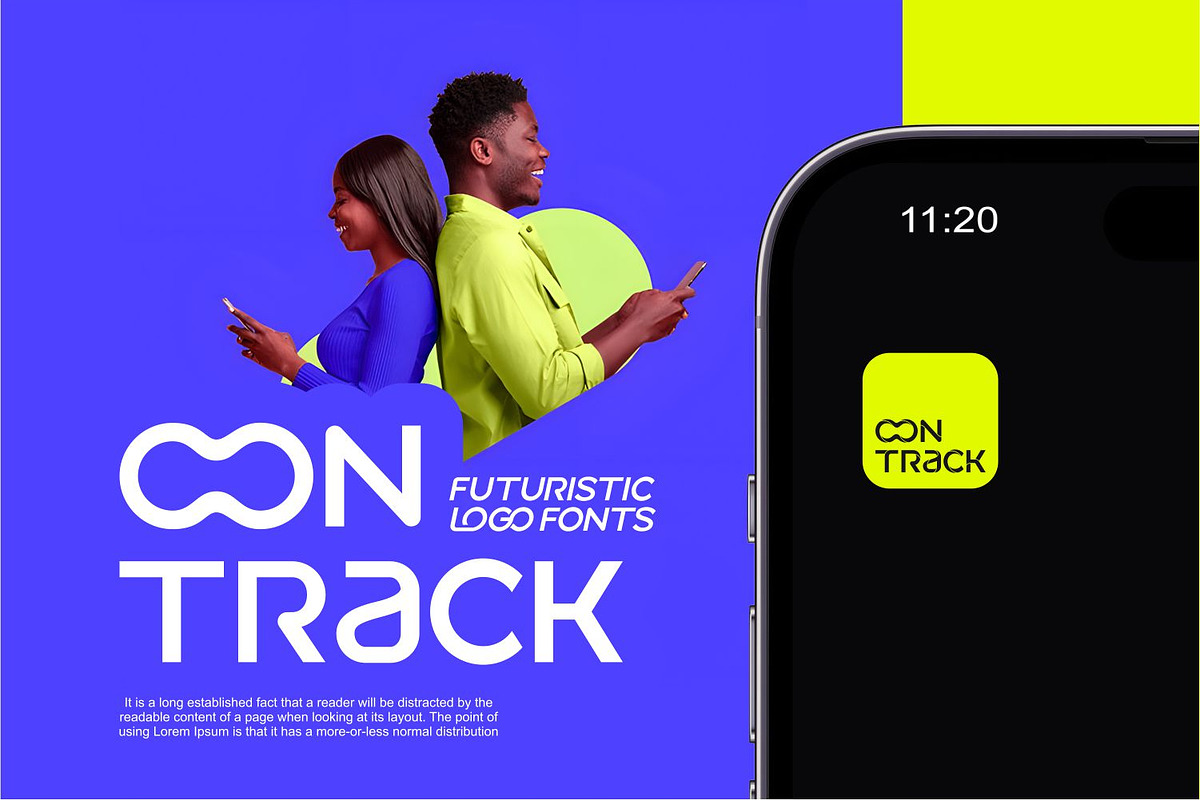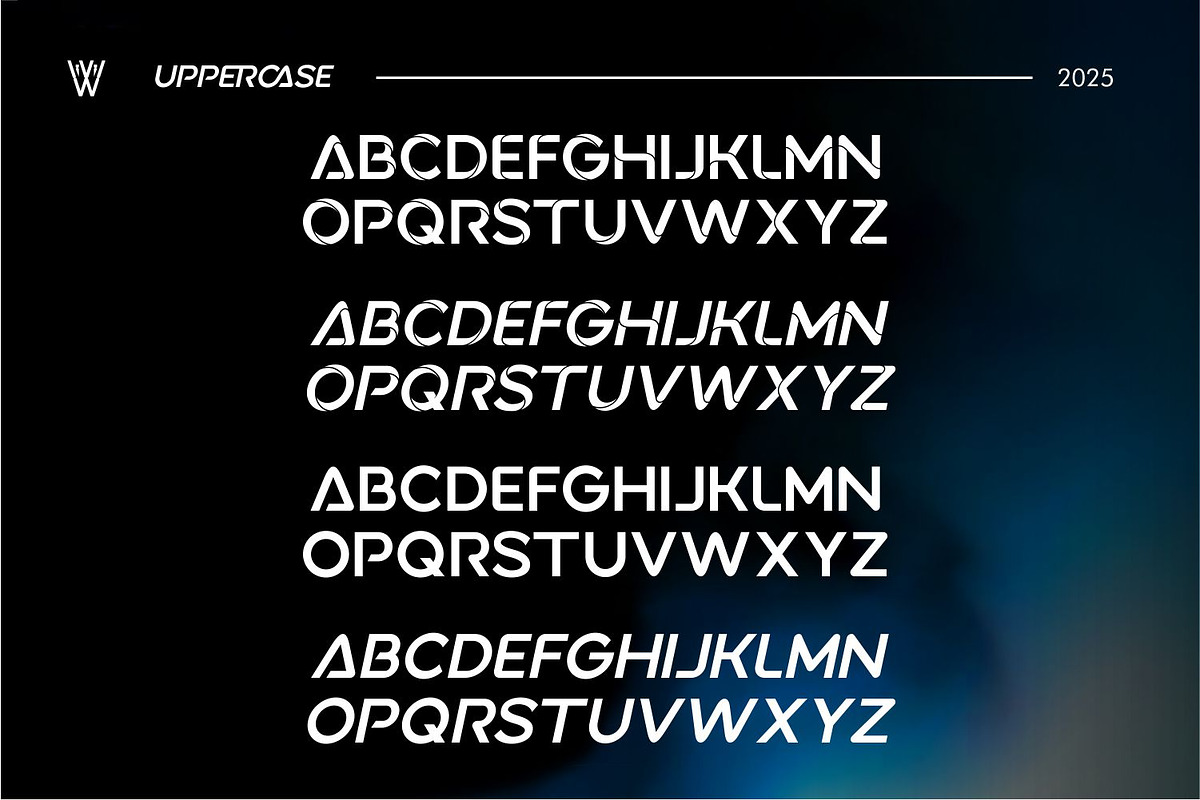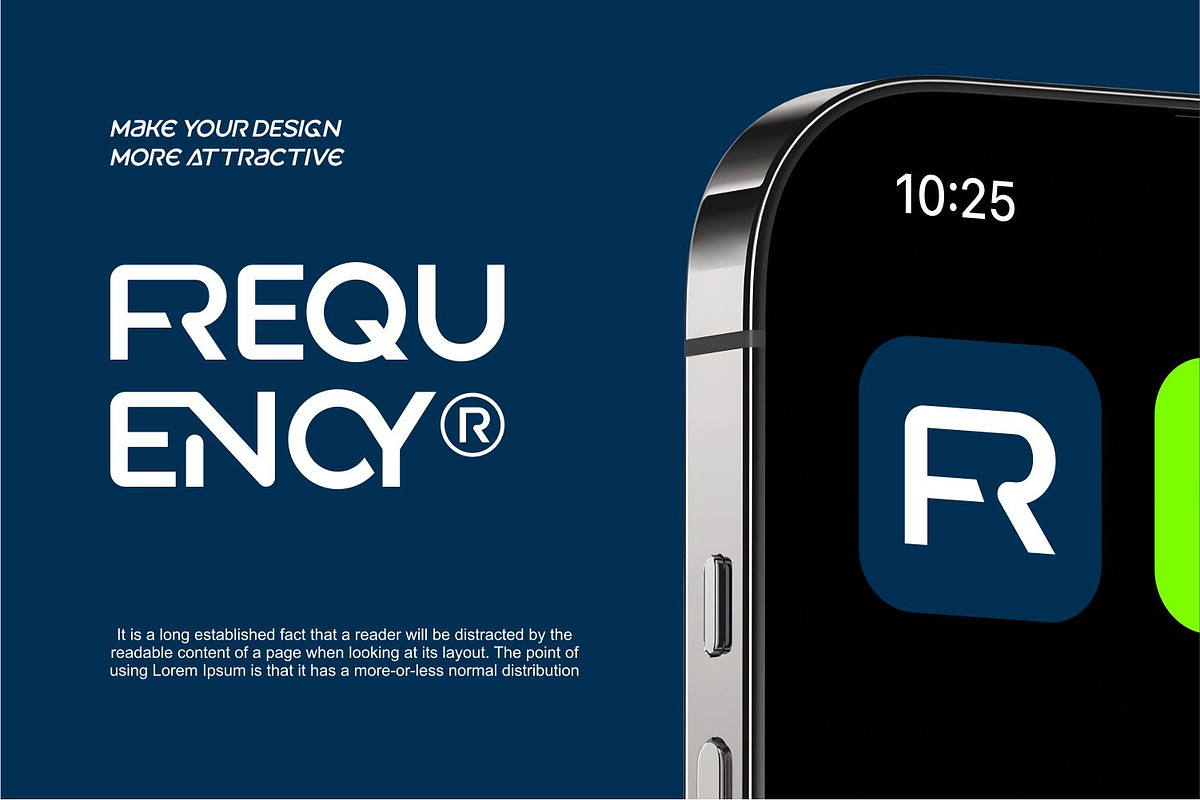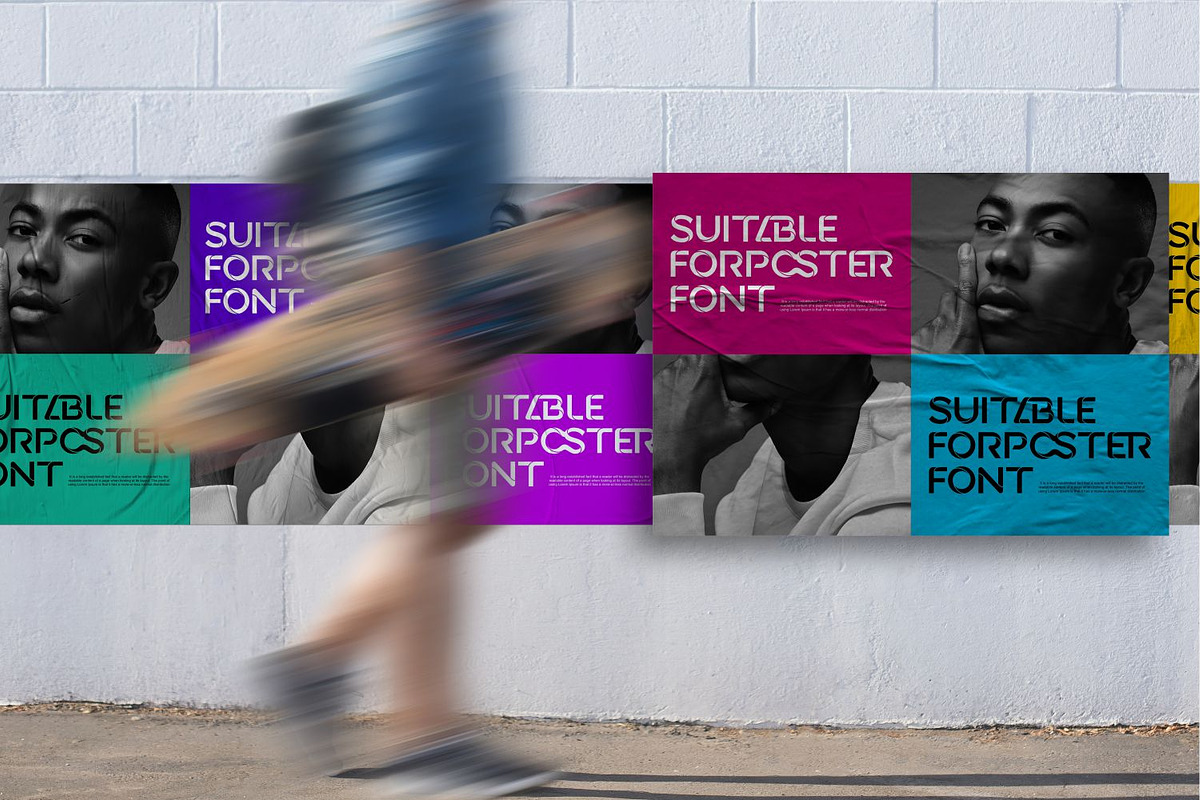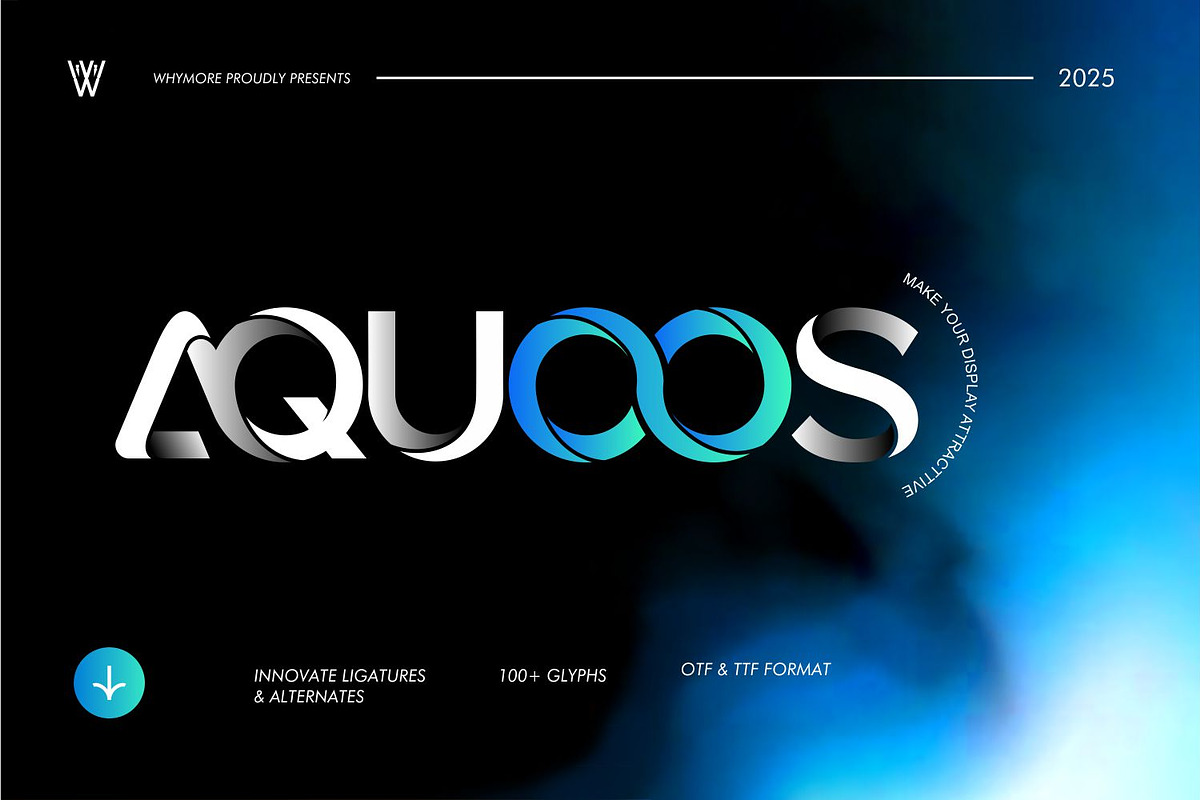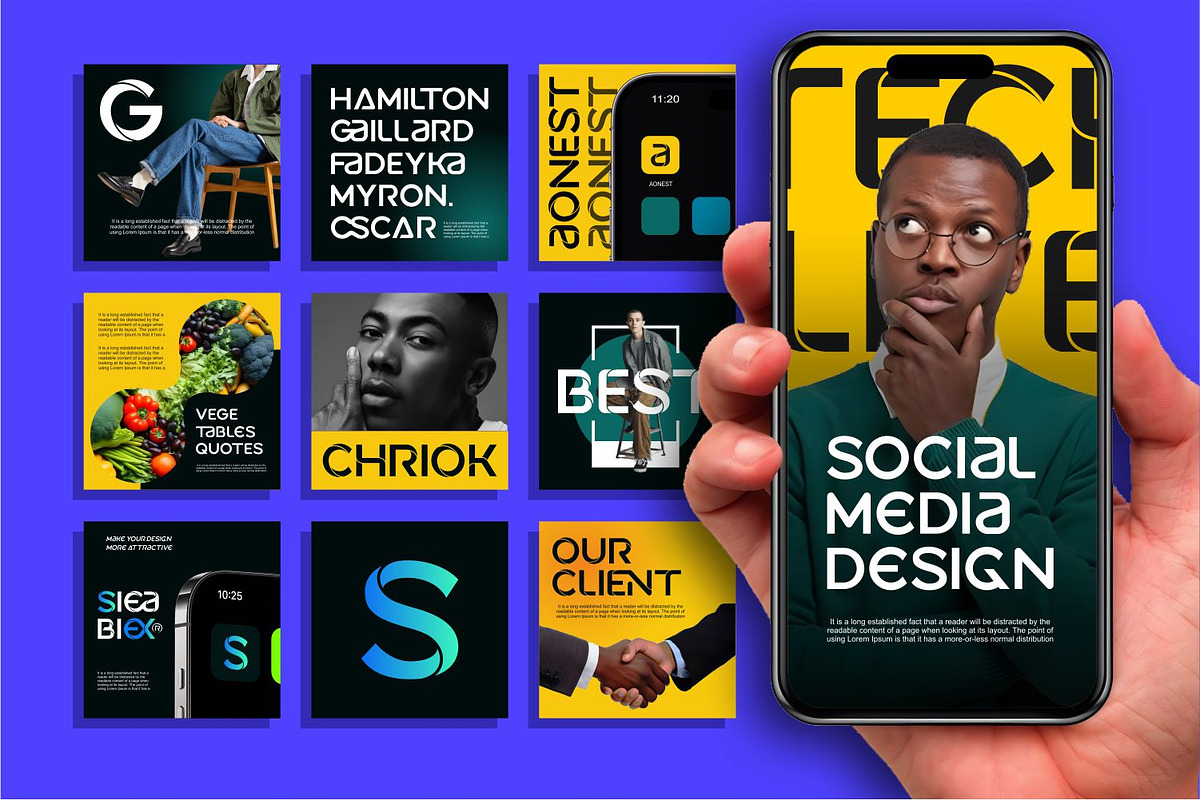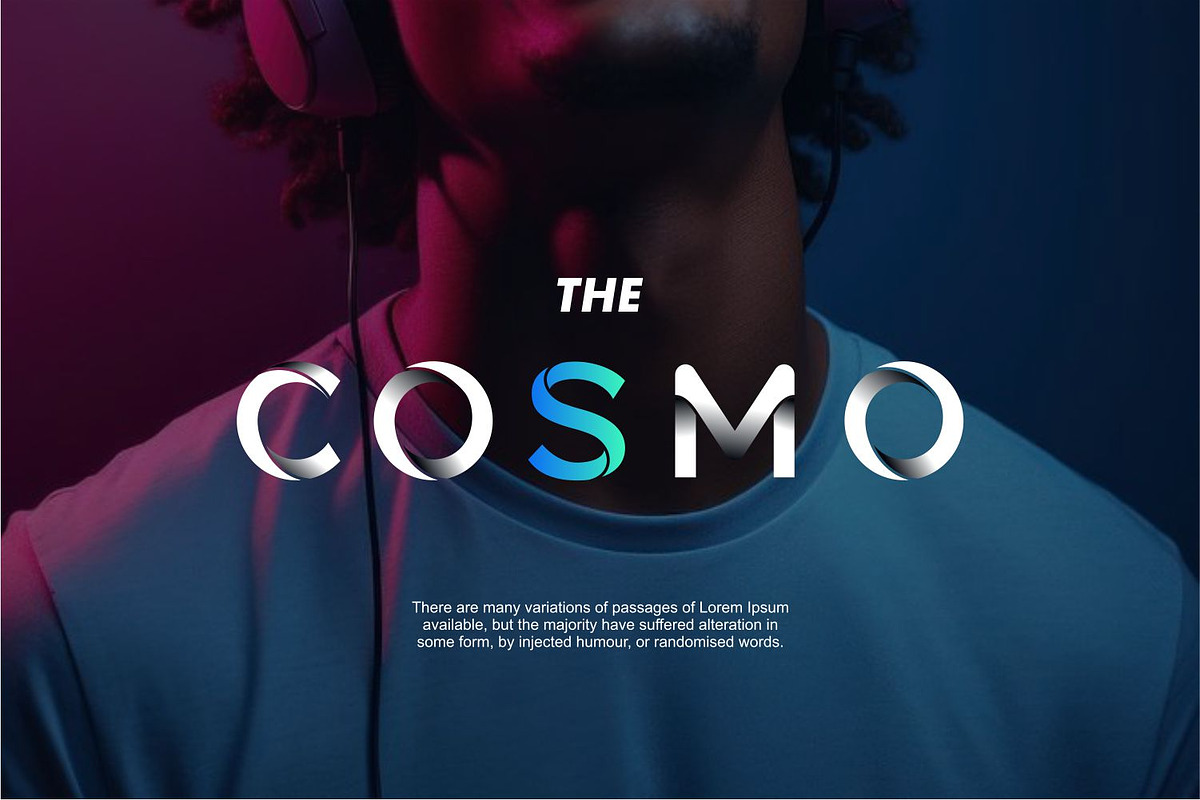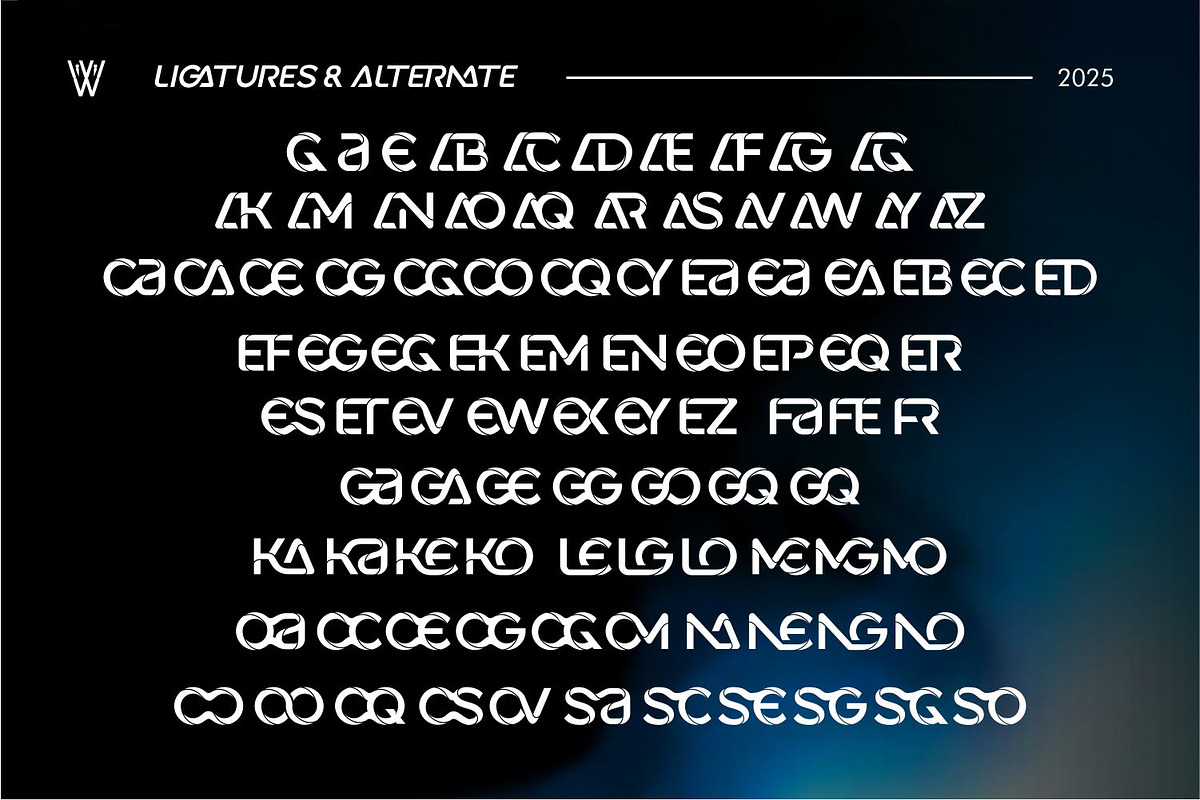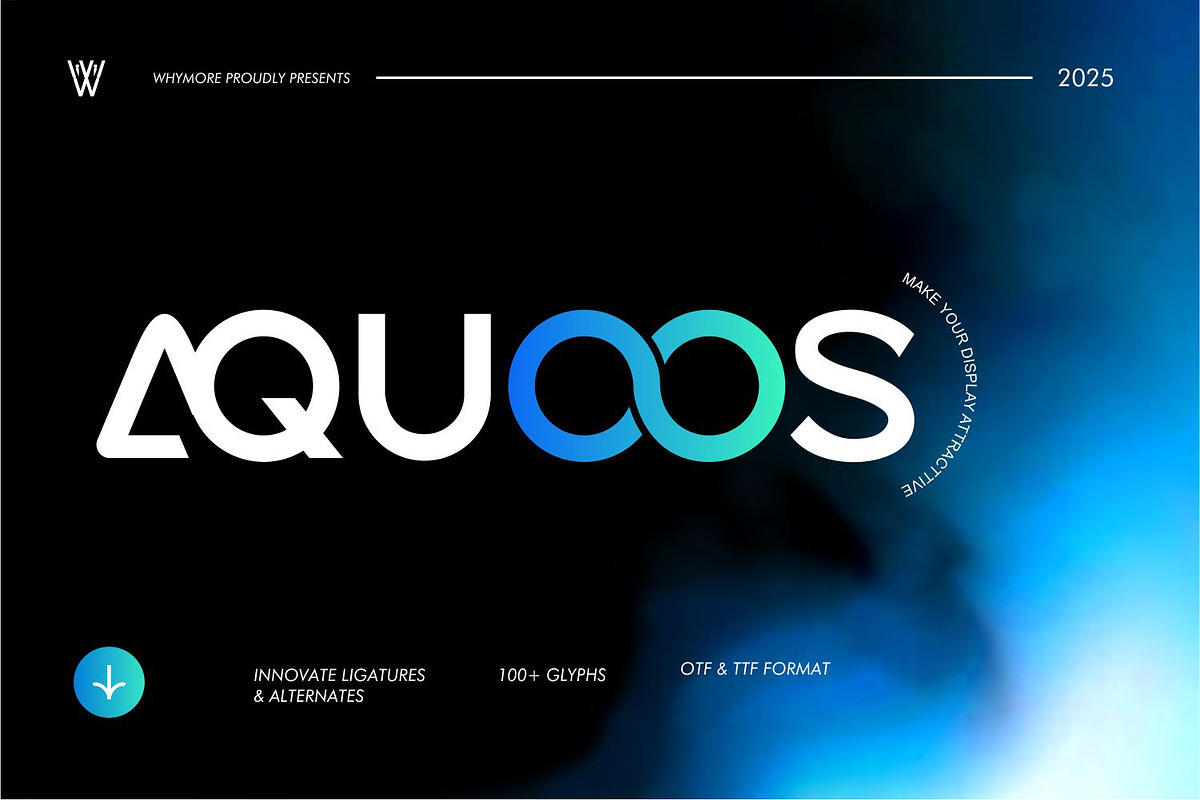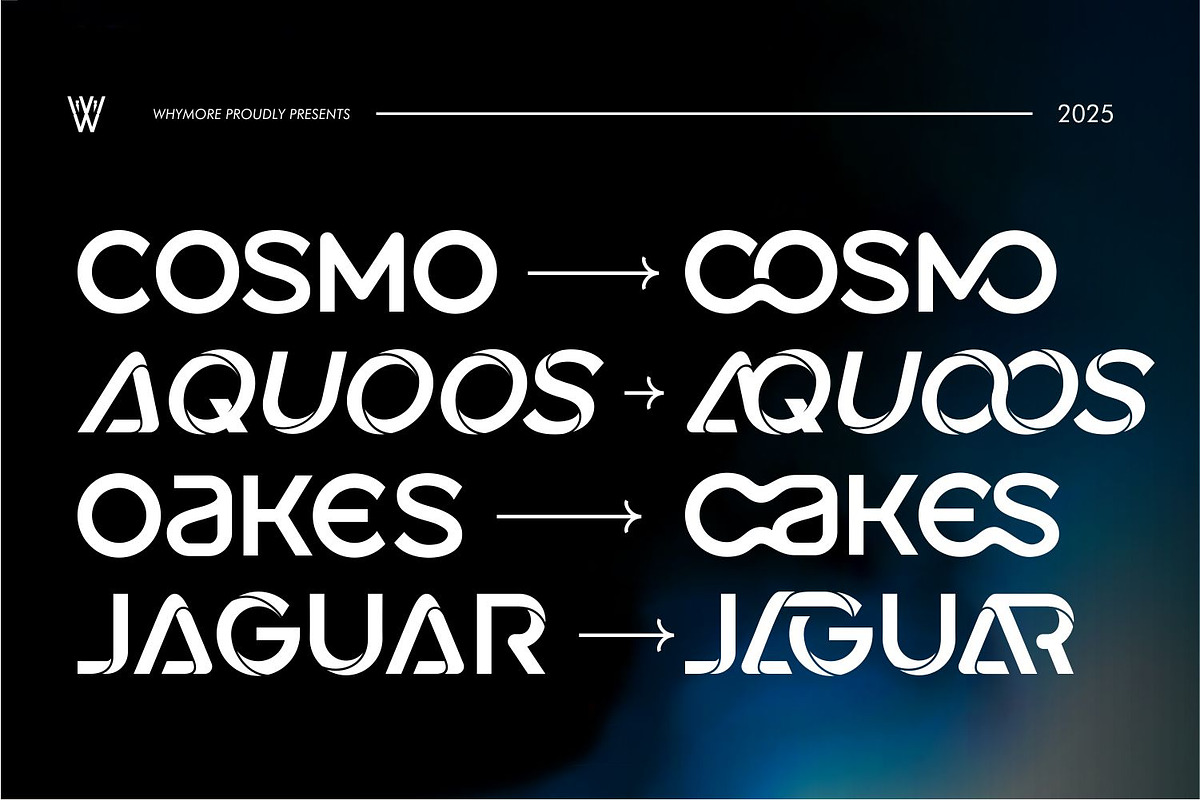
AQUOOS Modern Futuristic Display
AQUOOS Modern Futuristic Display Sans Font
Elevate your designs with AQUOOS, a cutting-edge futuristic display font that merges innovation and elegance. Crafted with dynamic ligatures and alternates, AQUOOS is perfect for projects that demand a modern and forward-thinking aesthetic.
This font is versatile yet distinct, making it an excellent choice for branding, logo design, tech-inspired visuals, and web or mobile applications. Its sleek and minimalistic design ensures readability while adding a touch of sophistication to headlines, posters, and promotional materials. Key Features:
Innovative Ligatures & Alternates: Add unique flair to your typography. 3D-inspired Elements: Give your text a bold, dimensional appearance. Versatile Use: Perfect for branding, logos, web design, app interfaces, and more. Professional Formats: Includes OTF & TTF for seamless integration with your favorite design software.
Whether you're designing for a futuristic tech startup, crafting eye-catching headlines, or creating minimalist logos, AQUOOS is your ultimate font solution.
Unlock the potential of your designs with AQUOOS—where simplicity meets the future!
Explore your creativity with AQUOOS fonts.